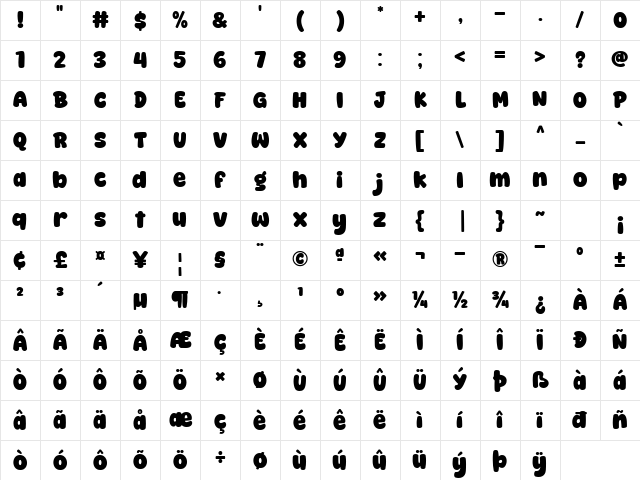
Super Frosting Regular
Design Context for Super Frosting
Super Frosting is a composed and adaptable typeface that performs quietly and consistently across a wide range of design contexts.
Pro Tip: Use Super Frosting in both headline and body roles to test its range before committing to a single application.